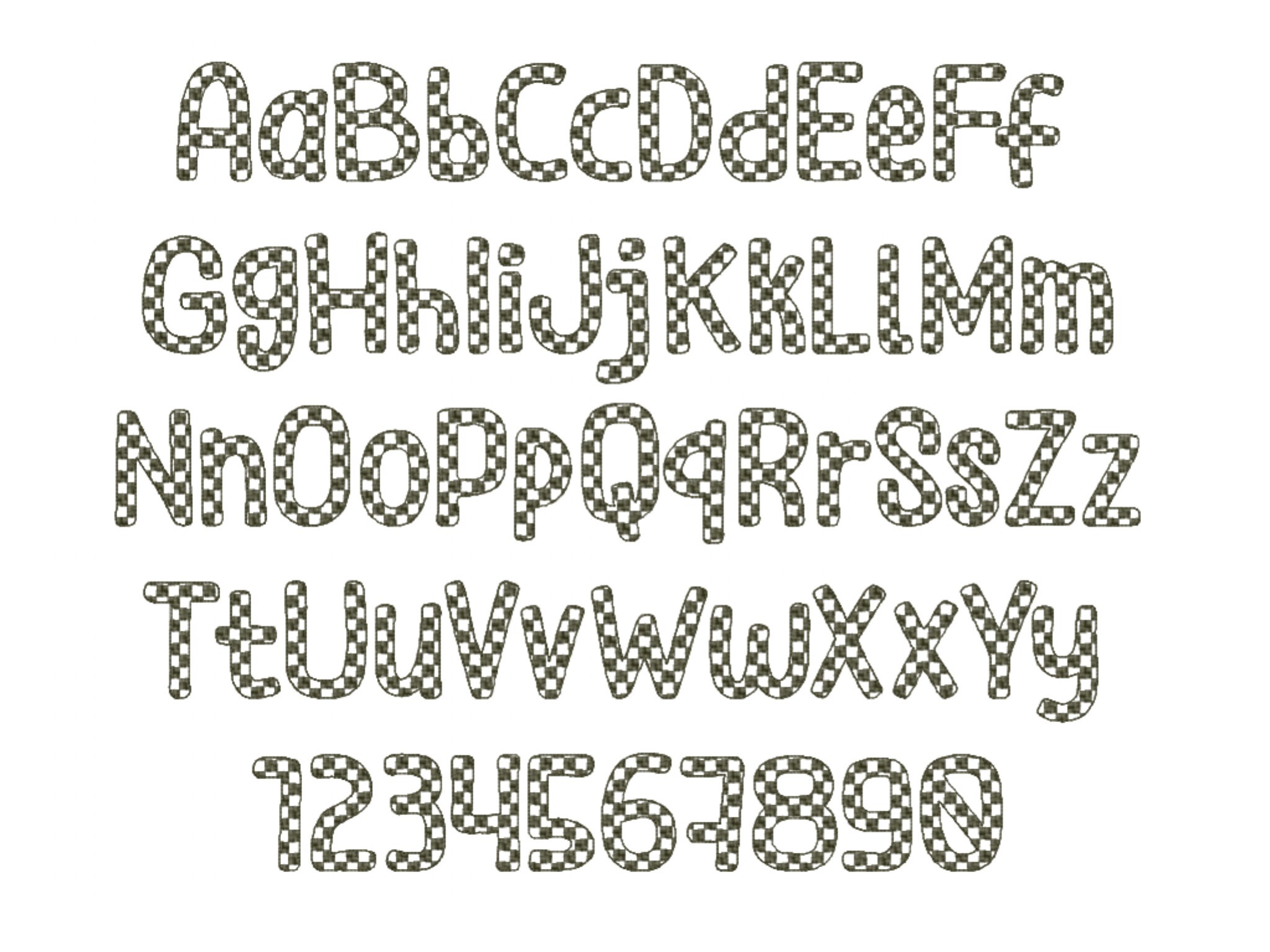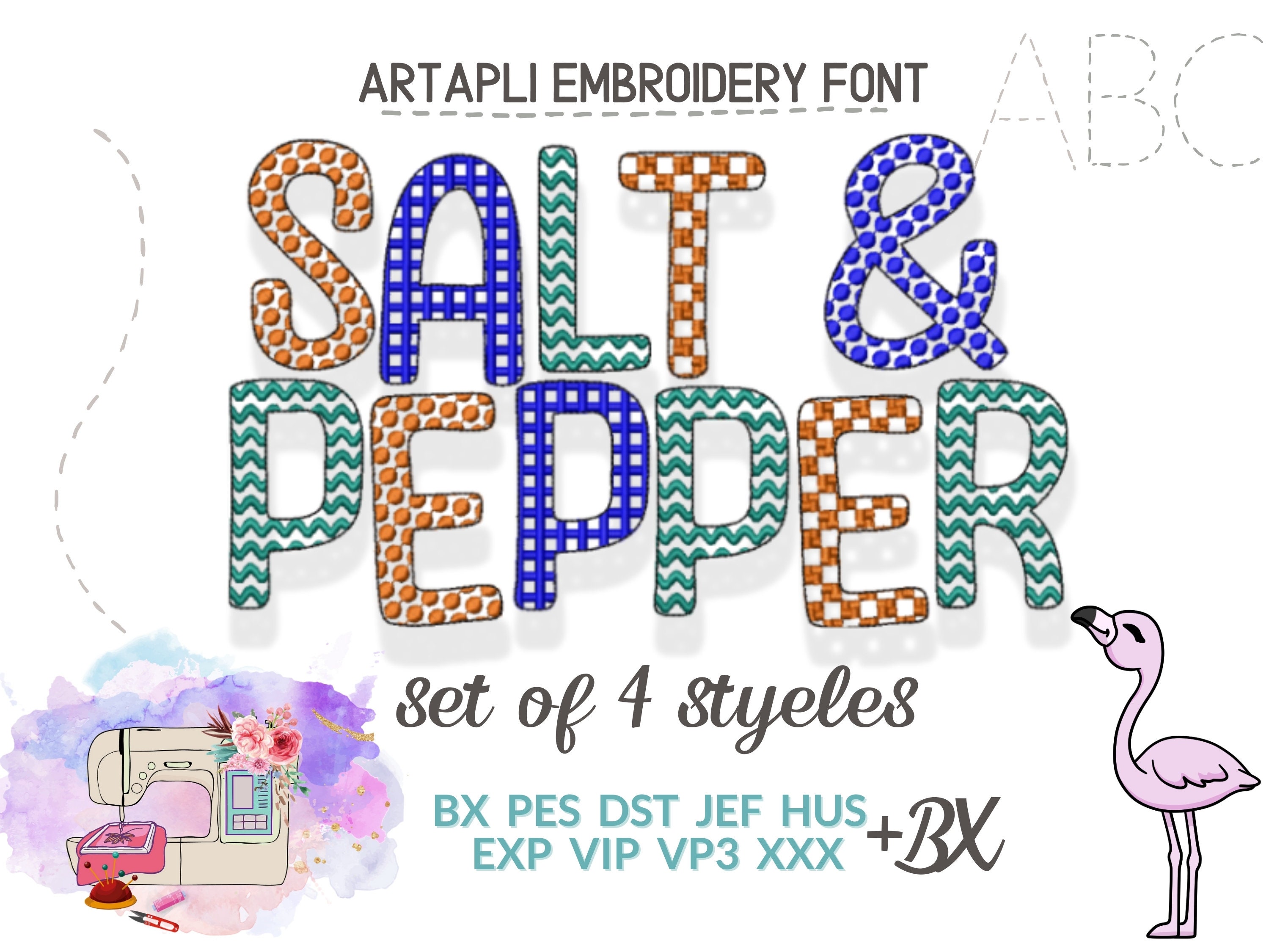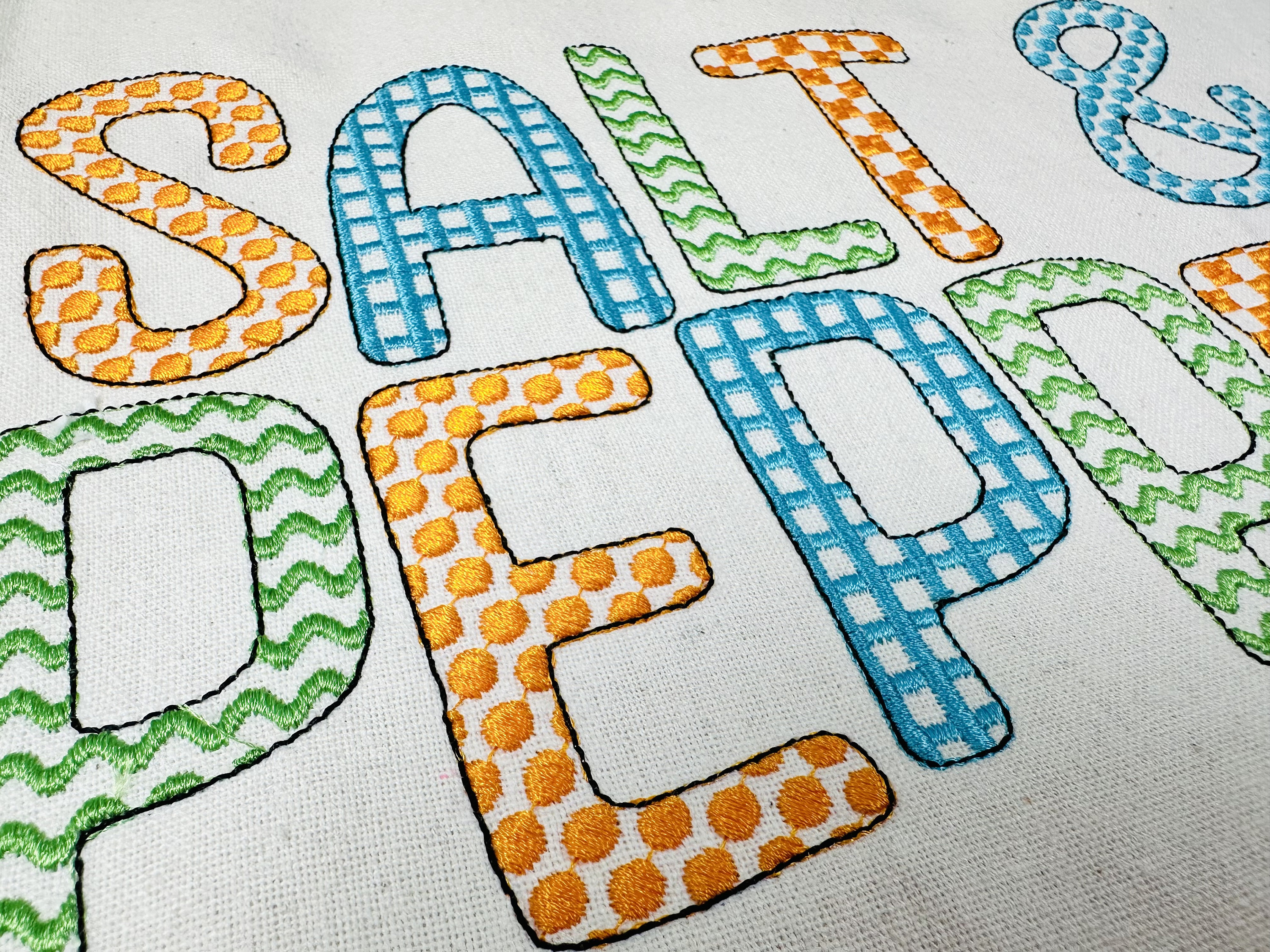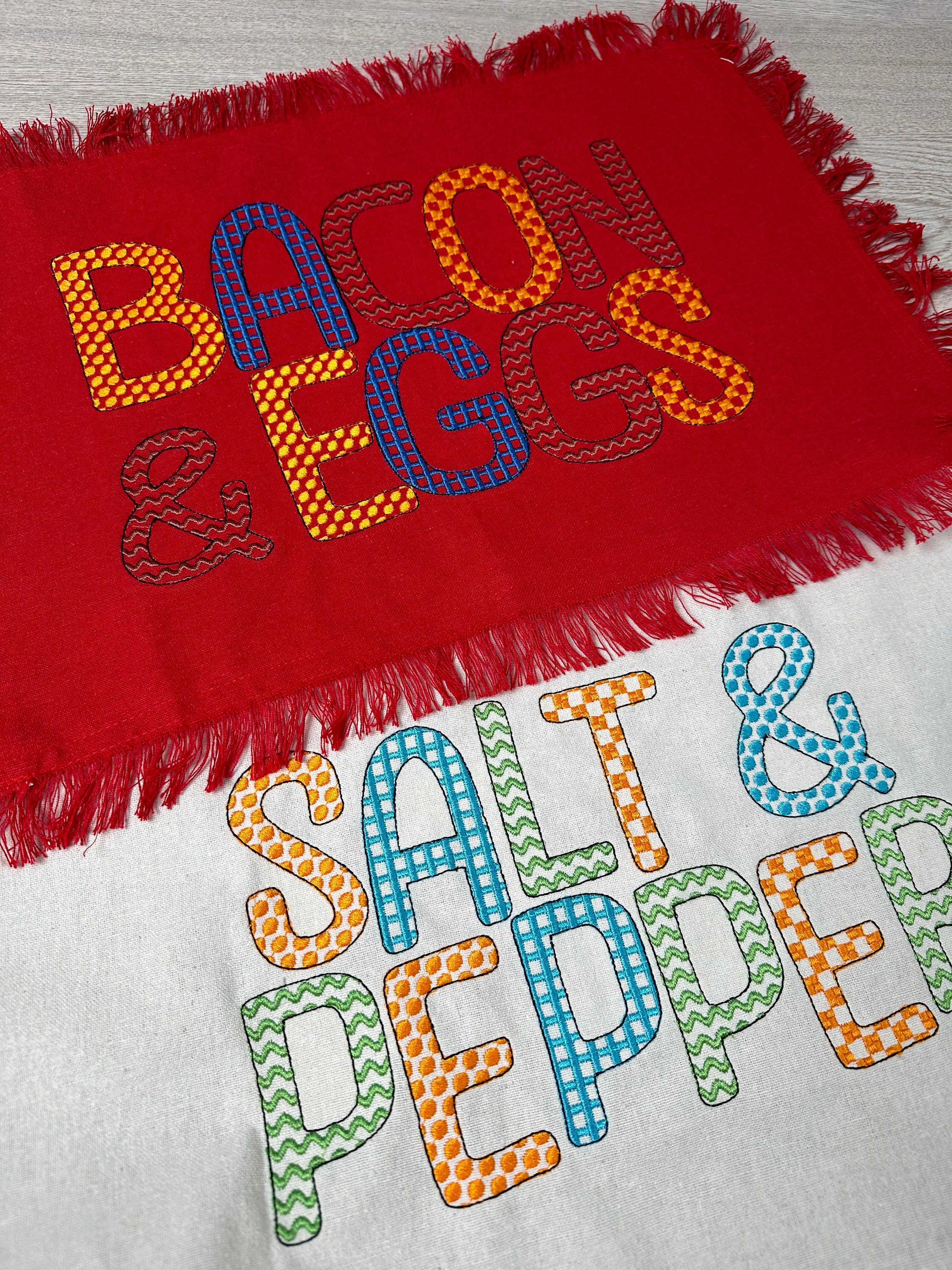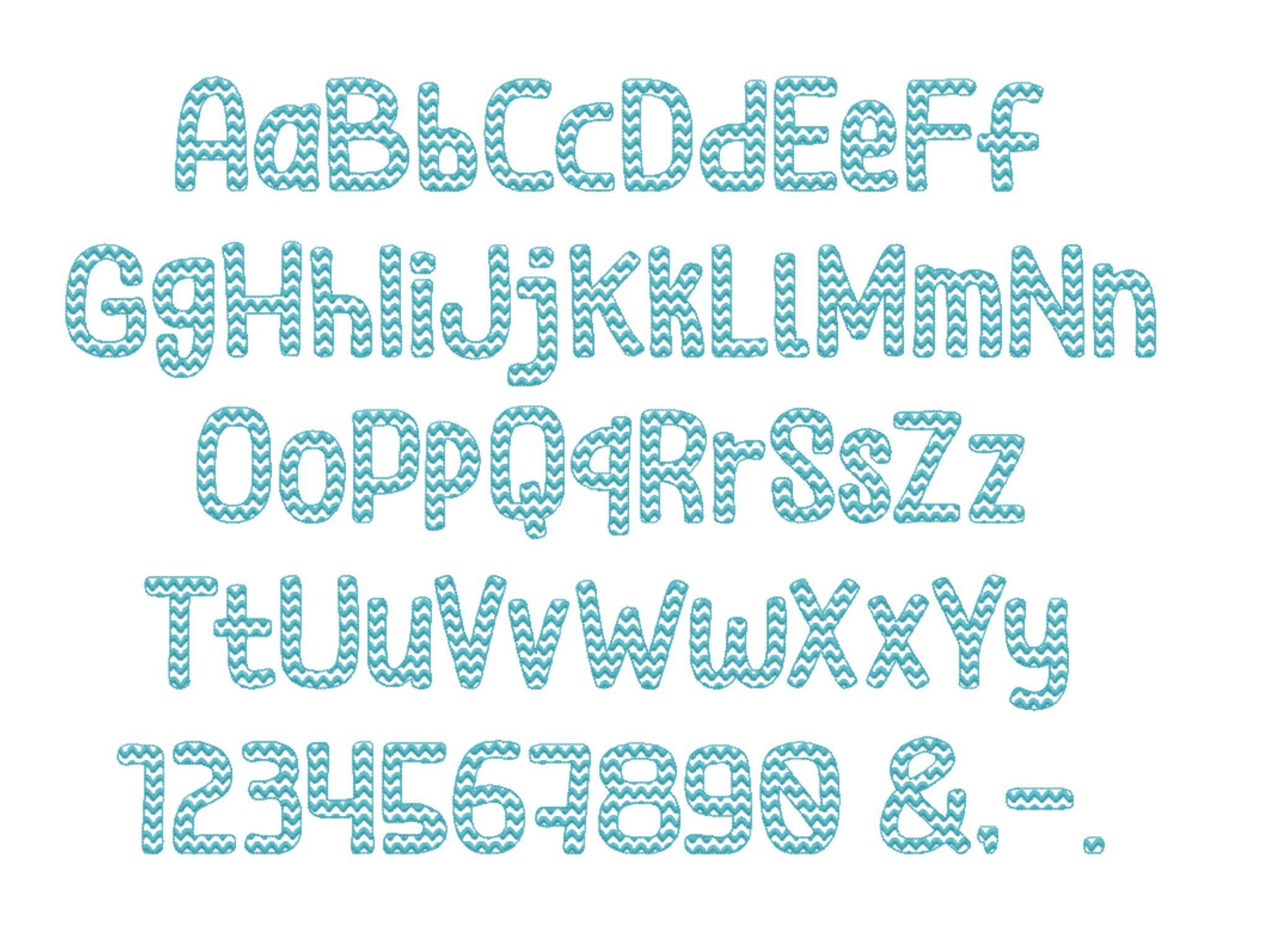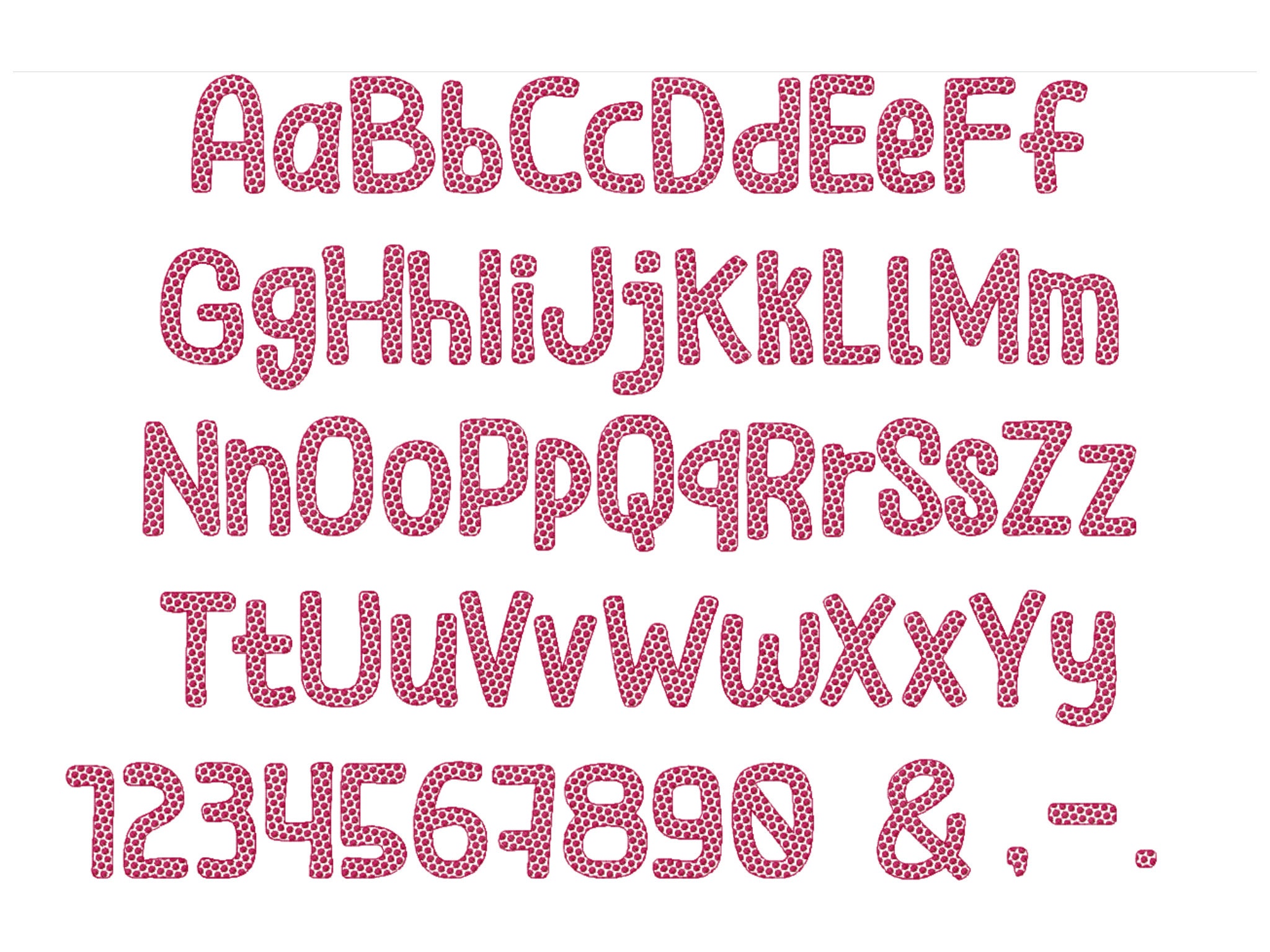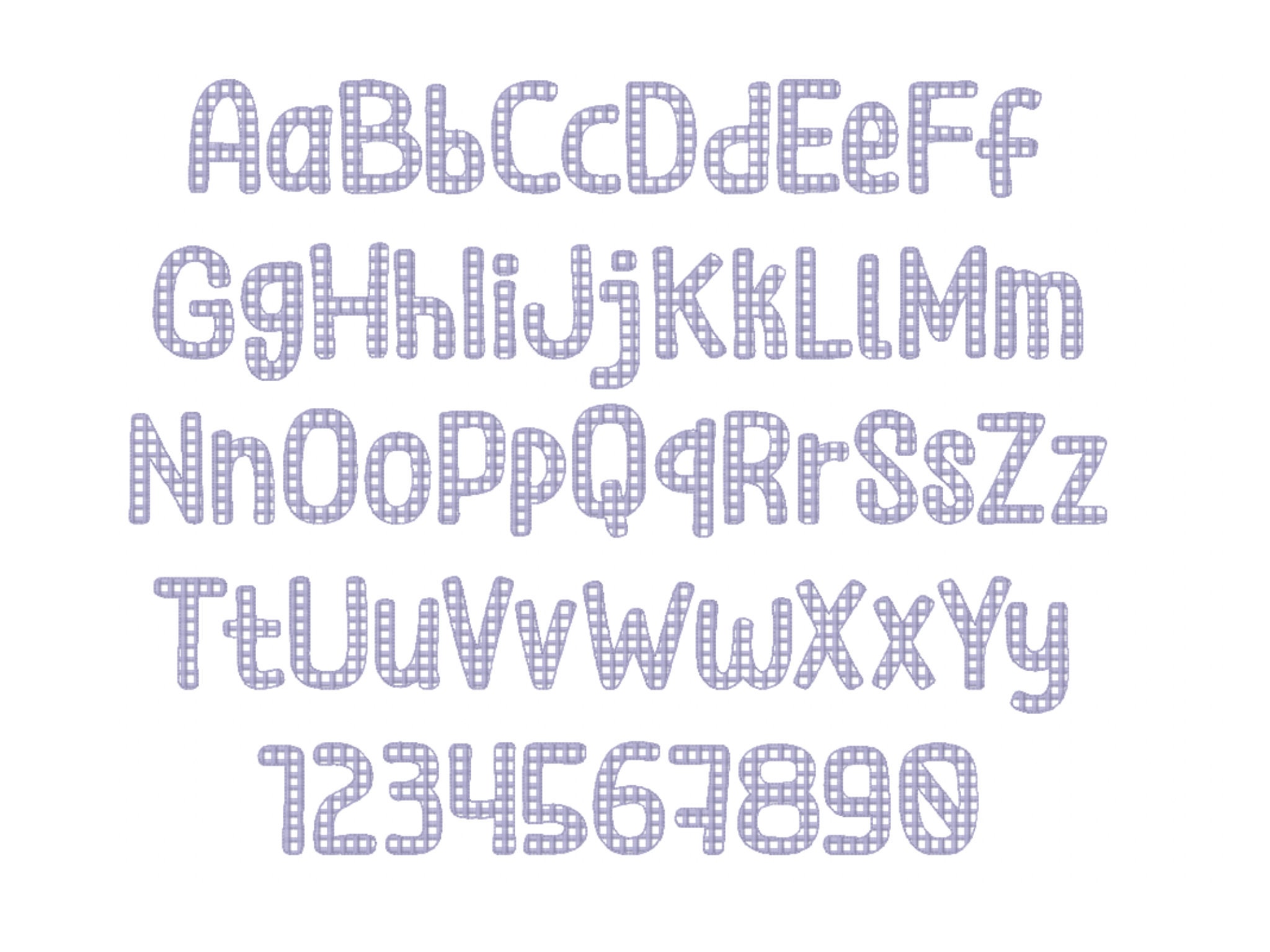
Decorative Embroidery Font set DIY names Dots Checks Waves Chess alphabet letters & numbers machine embroidery designs font mini big abc
Included 4 fonts:
* dotted font
* checkered font
* chess font
* ricrac font
The fonts are transparent and have a fill stitch or satin stitch pattern inside, and a light bean stitch outline.
Each font contains uppercase and lowercase letters Aa-Zz and numbers 0-9.
Merge and combine the letters and numbers as you wish. Use different sizes and colors, just play and get awesome results!